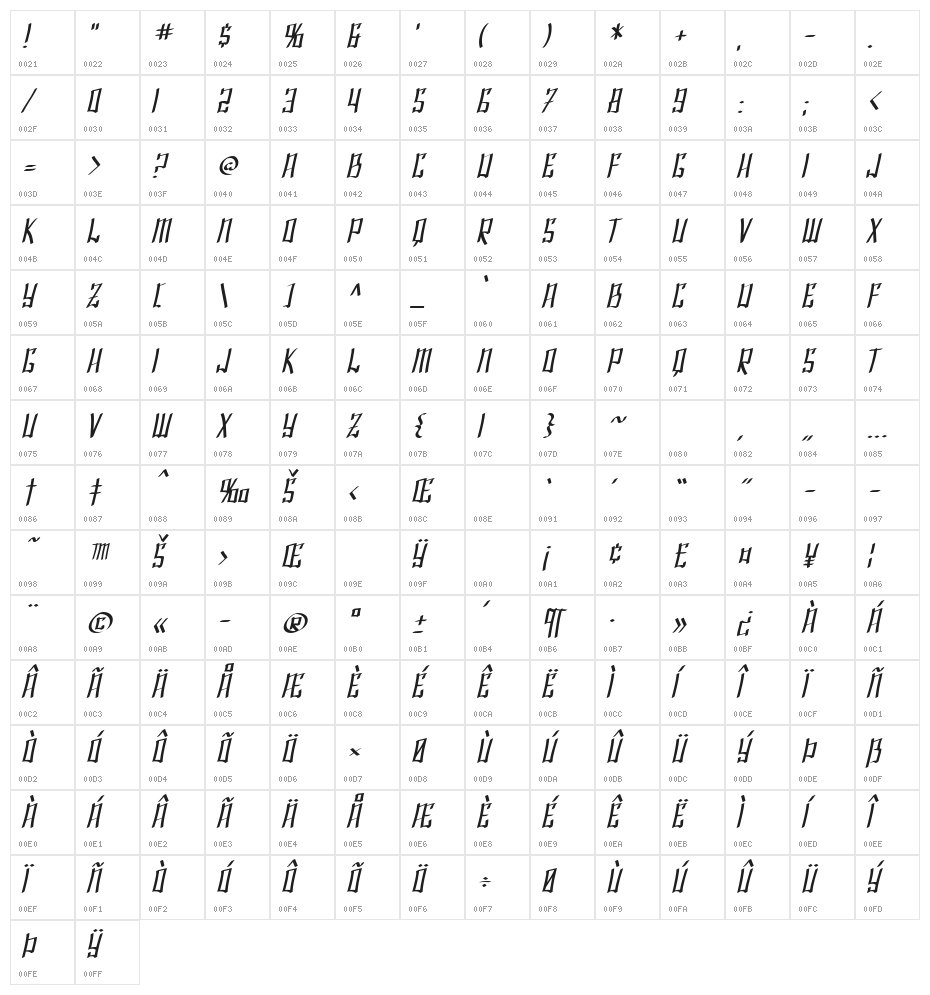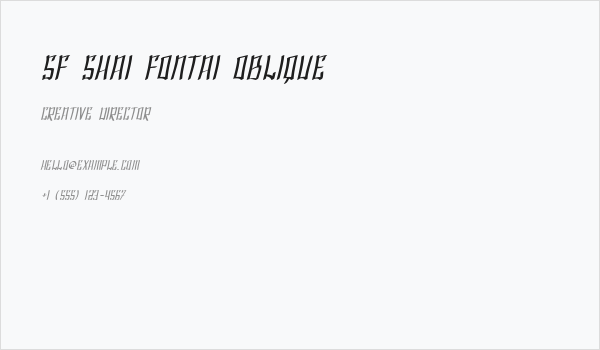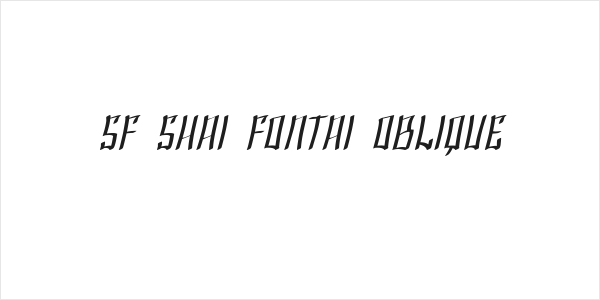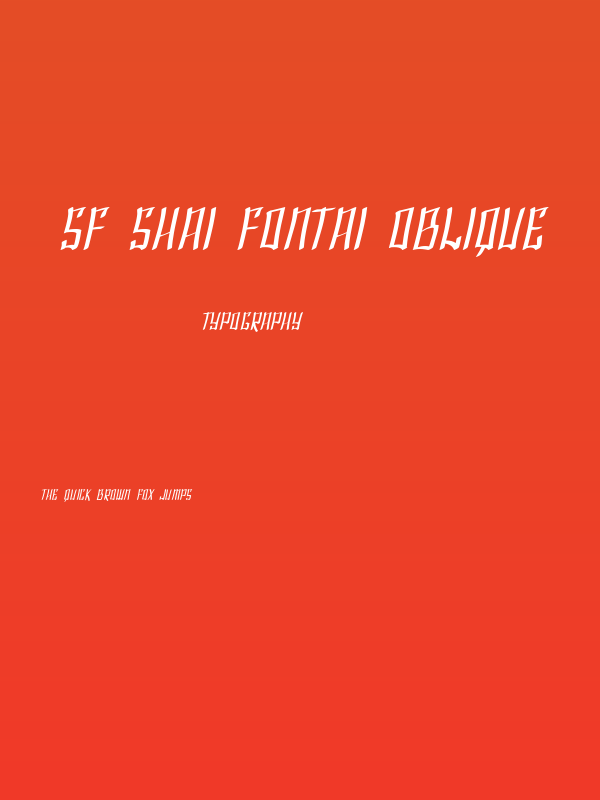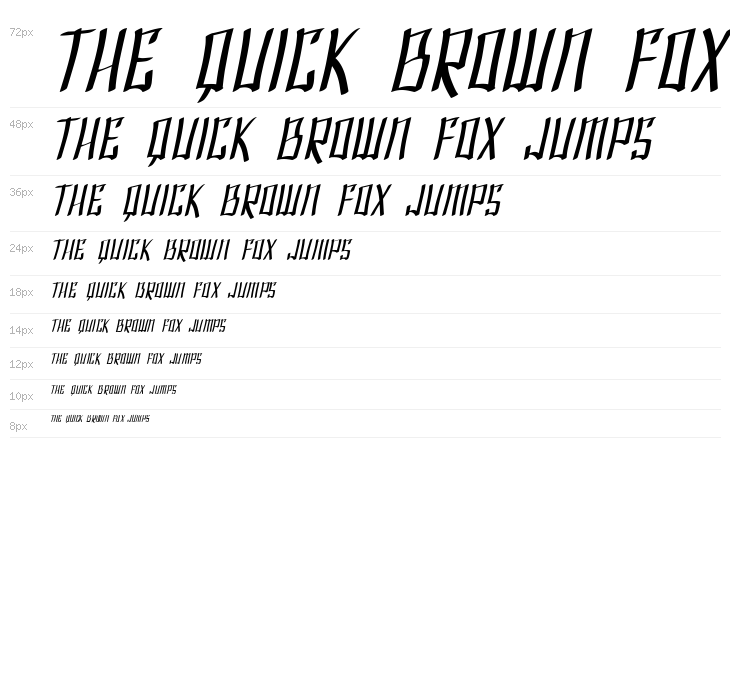
SF Shai Fontai Oblique Font
SF Shai Fontai Oblique Description
This font features a dynamic and angular design, characterized by its sharp, slanted strokes that create a sense of motion and energy. The letters are elongated and narrow, with a consistent oblique angle that adds a modern and edgy feel. The uppercase and lowercase letters maintain a uniform style, while the numerals and special characters complement the overall aesthetic with their bold and striking appearance. The font's unique style makes it stand out, offering a distinctive look that is both contemporary and expressive.
| Proposed Projects | Ideal for branding, posters, and headlines that require a bold and energetic look. |